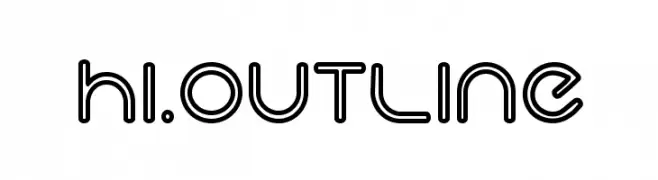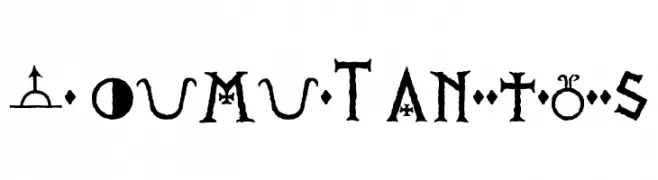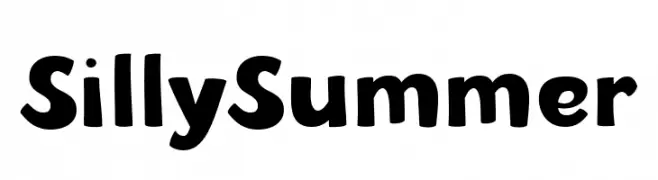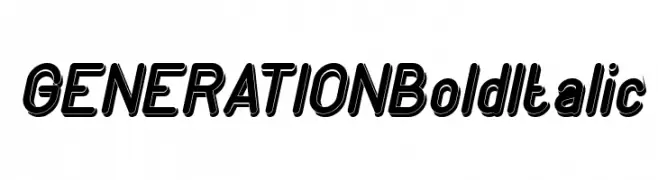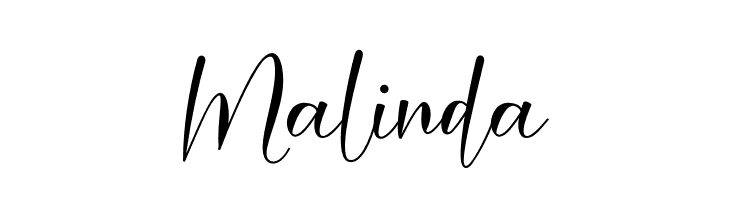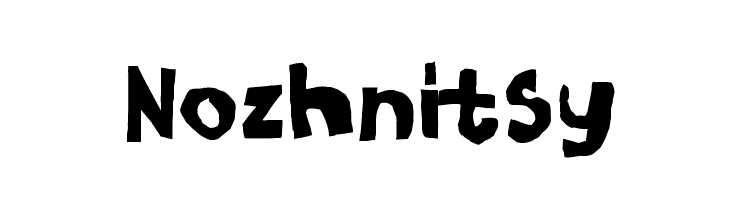
A modern, outline-style font with rounded edges and a tubular appearance.
A bold, italicized font with a modern half-tone effect and geometric structure.
A decorative font inspired by Viking and ancient runic symbols with a mystical, hand-drawn style.
A flowing, cursive script font with elegant, connected letters.
Artistic, abstract display font with hand-drawn illustrations and modernist motifs.
A bold, geometric font with a futuristic and digital aesthetic.
A collection of abstract, nature-inspired symbols with high contrast and artistic flair.
Playful, hand-drawn style font.
A bold, italicized font with a strong, dynamic presence and shadow effect.